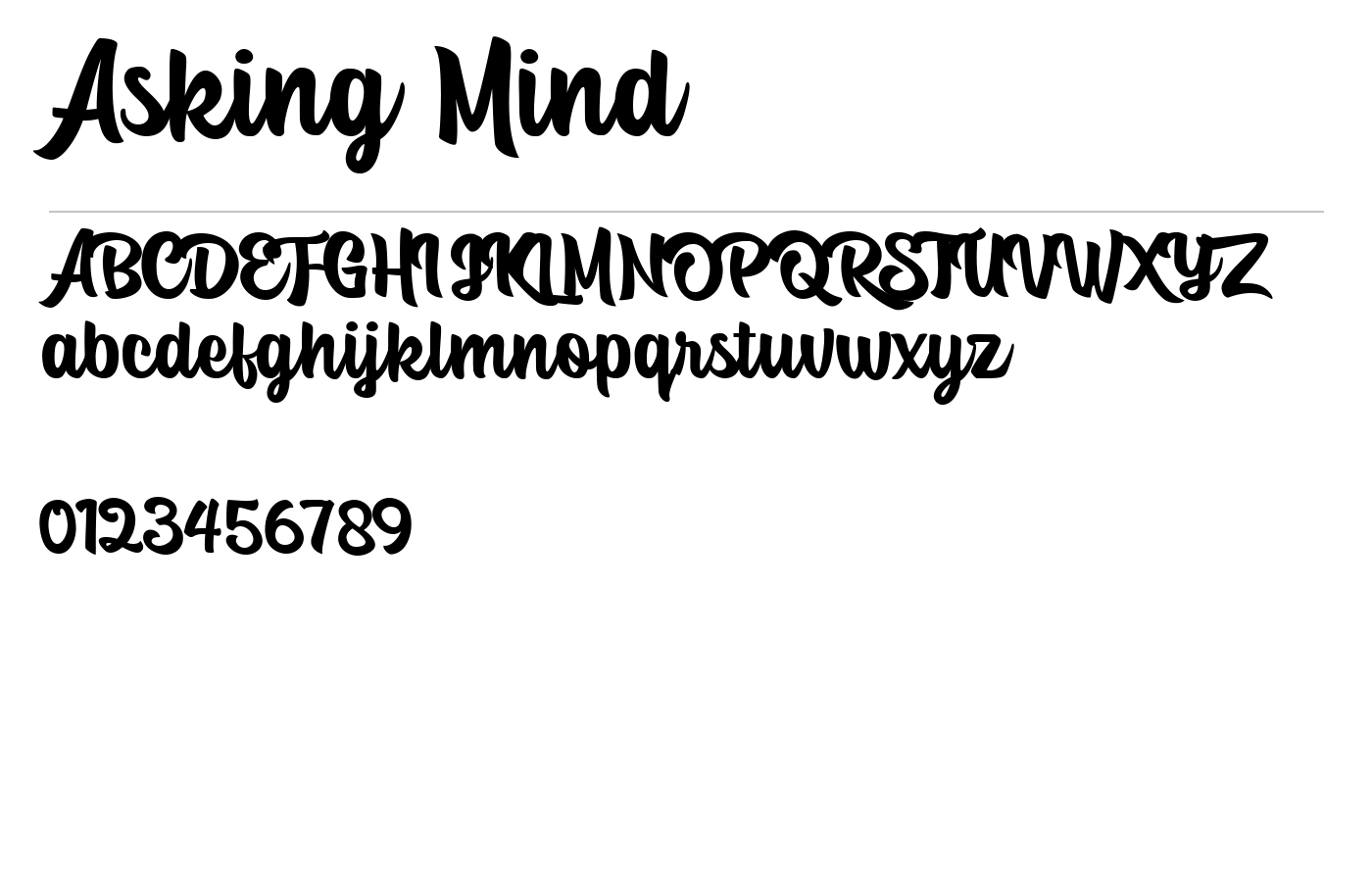
Asking Mind is a bold, playful script font with a smooth, hand-drawn feel that combines casual charm and legibility. Its rounded strokes and lively letterforms make it perfect for inviting designs, adding a friendly and approachable personality to branding, packaging, and headlines where a warm, creative touch is desired.
Asking Mind Font
About Asking Mind Font
| Font family | Asking Mind Font |
| Designer | Lettersiro 2017 |